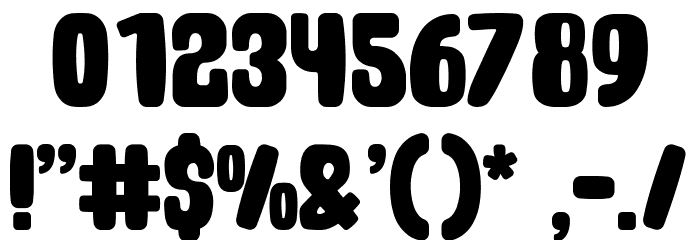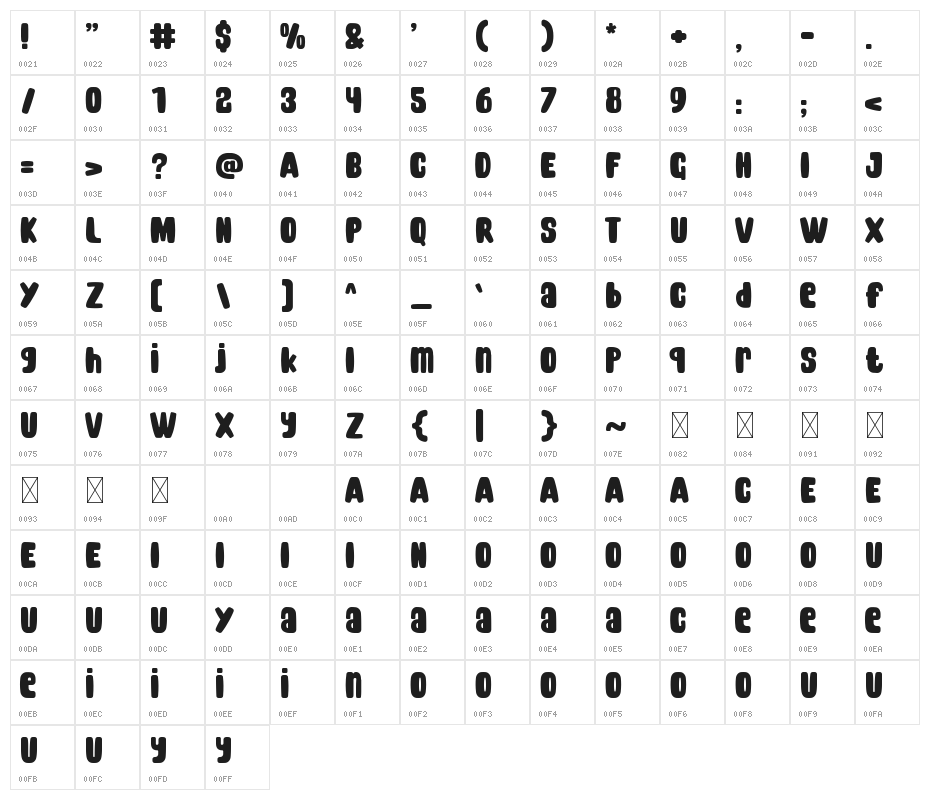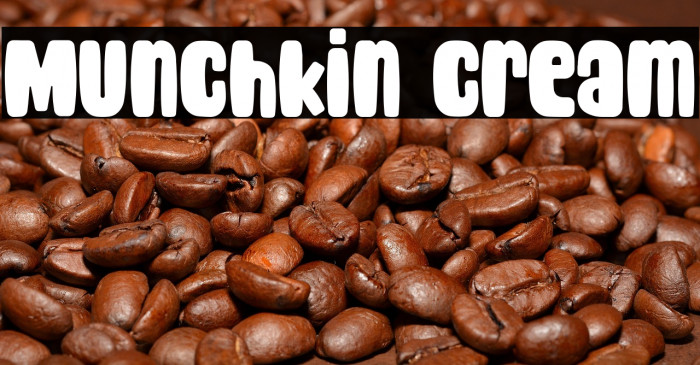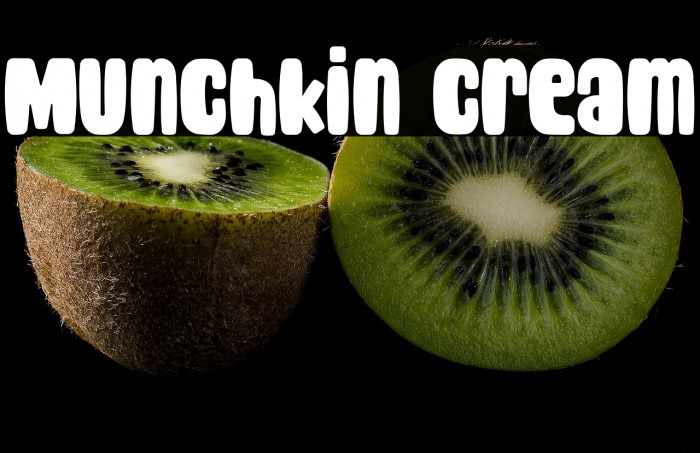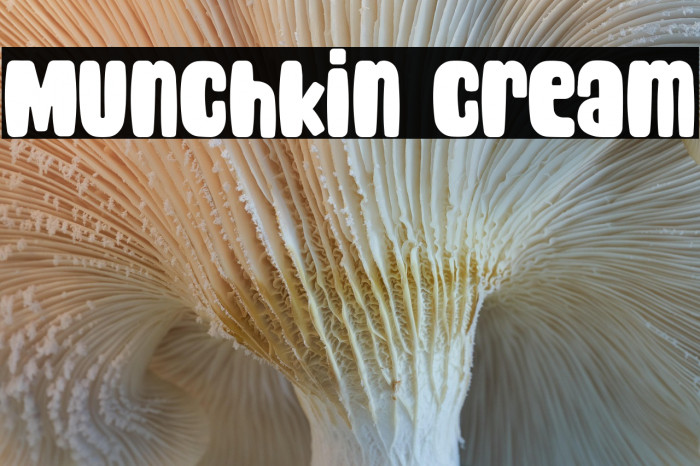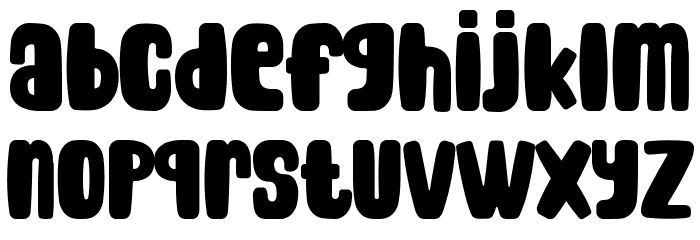
Munchkin Cream Font
Munchkin Cream Description
This playful and bold font features rounded, chunky letters that convey a sense of fun and whimsy. The characters are uniformly thick, giving them a strong presence on the page. The uppercase and lowercase letters maintain a consistent style, with smooth curves and a slightly irregular shape that adds to the font's charm. Numbers and special characters are designed with the same playful aesthetic, making them easily recognizable and cohesive with the rest of the font. This font is ideal for projects that require a lighthearted and approachable feel.
| Proposed Projects | Ideal for children's books, playful branding, party invitations, and casual posters. |